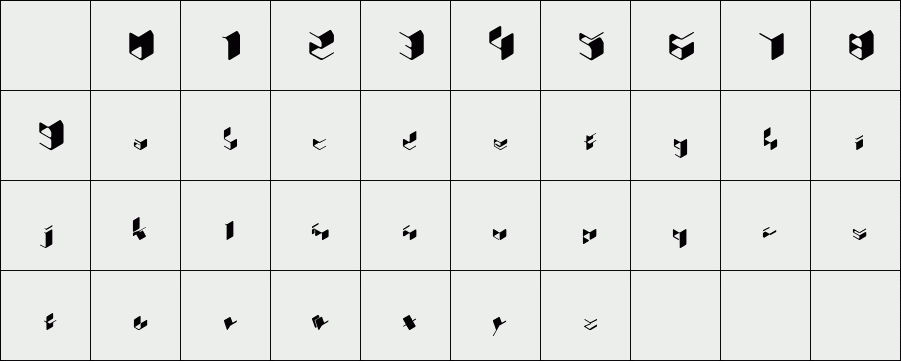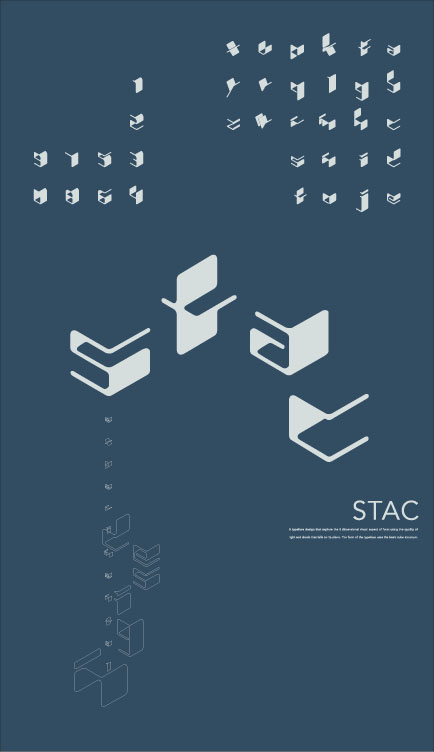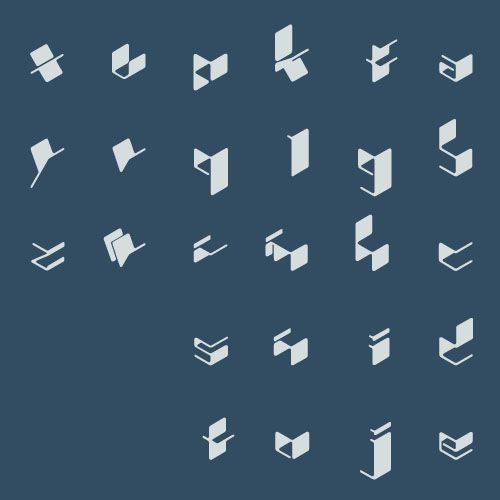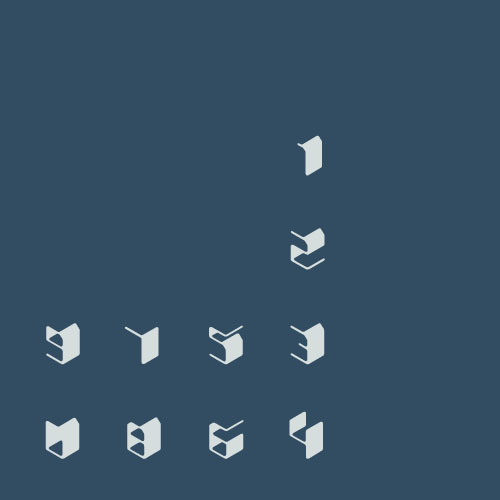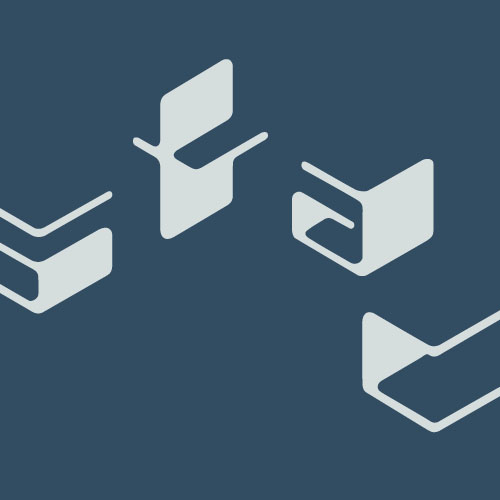
STAC
A typeface design that explore the 3 dimensional visual aspect of form using the quality of light and shade that falls on its plane. The form of typeface uses the basic cube structure.